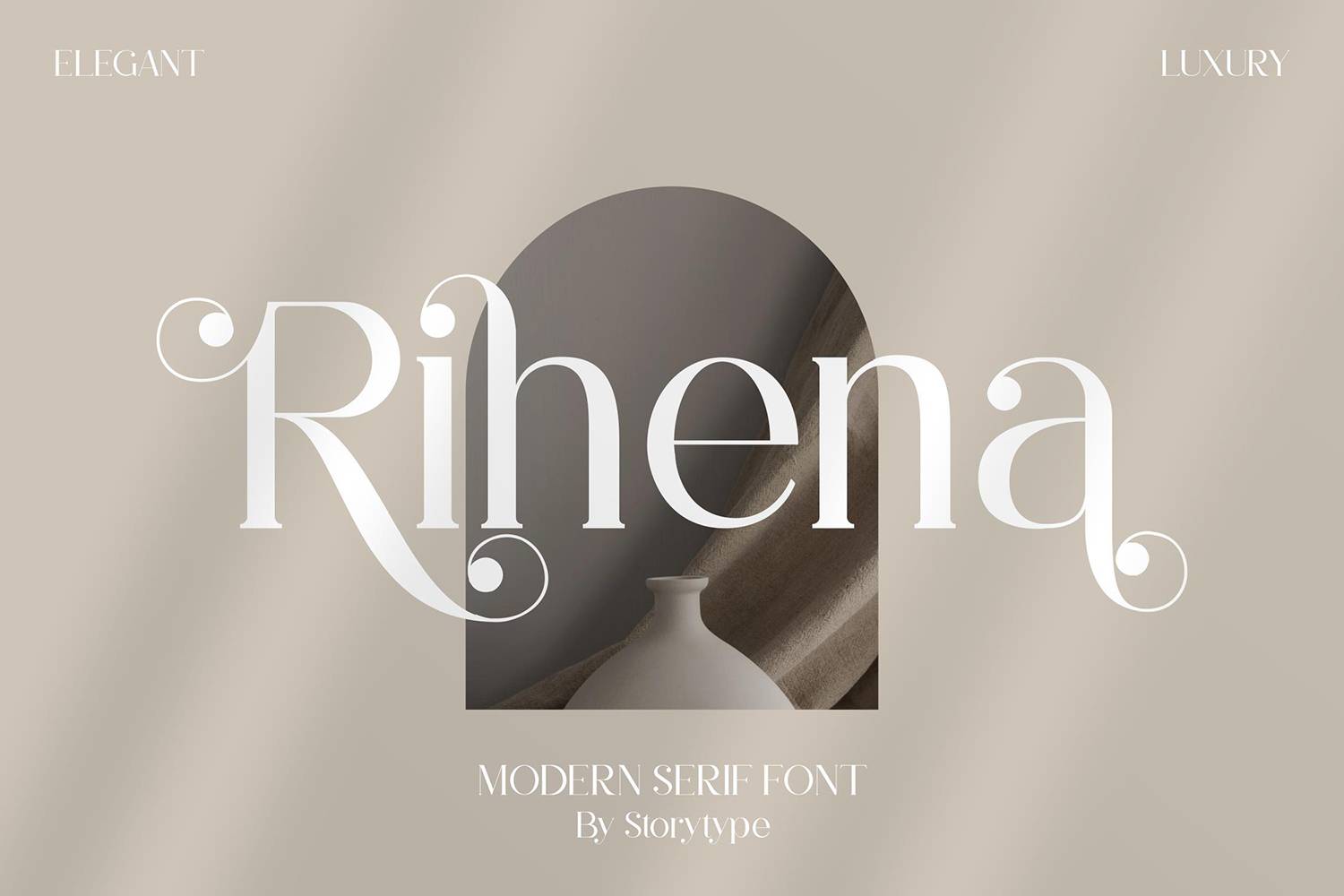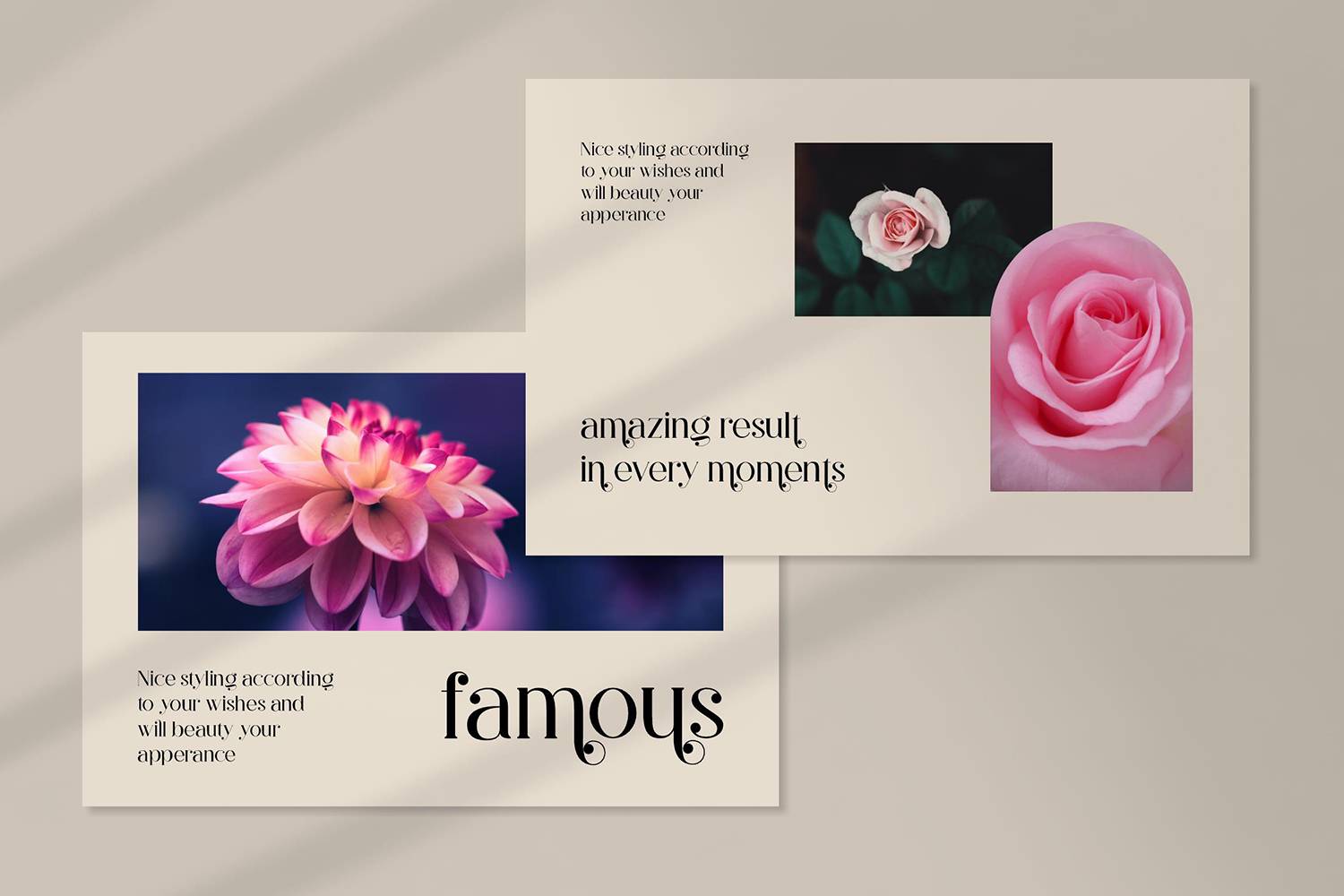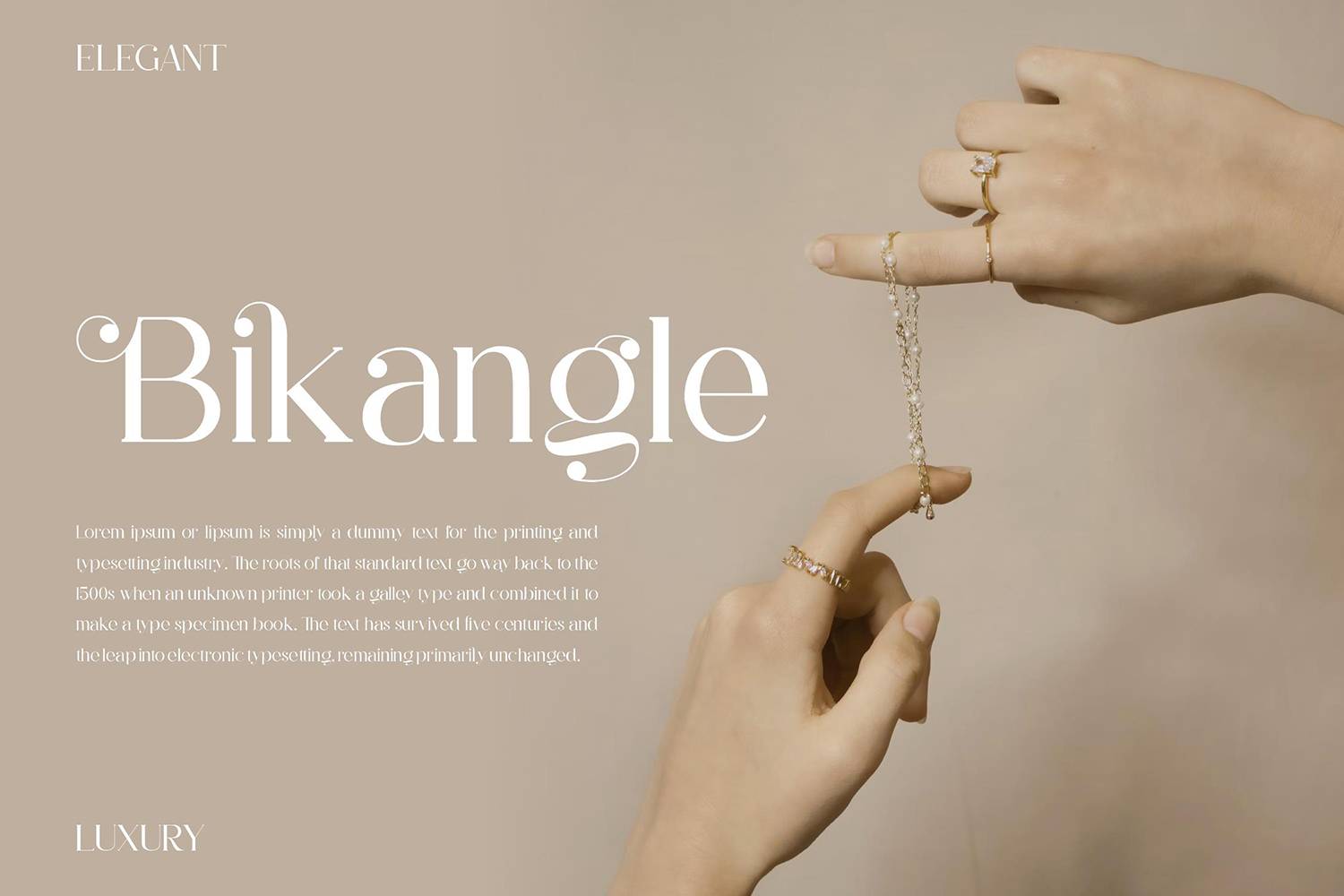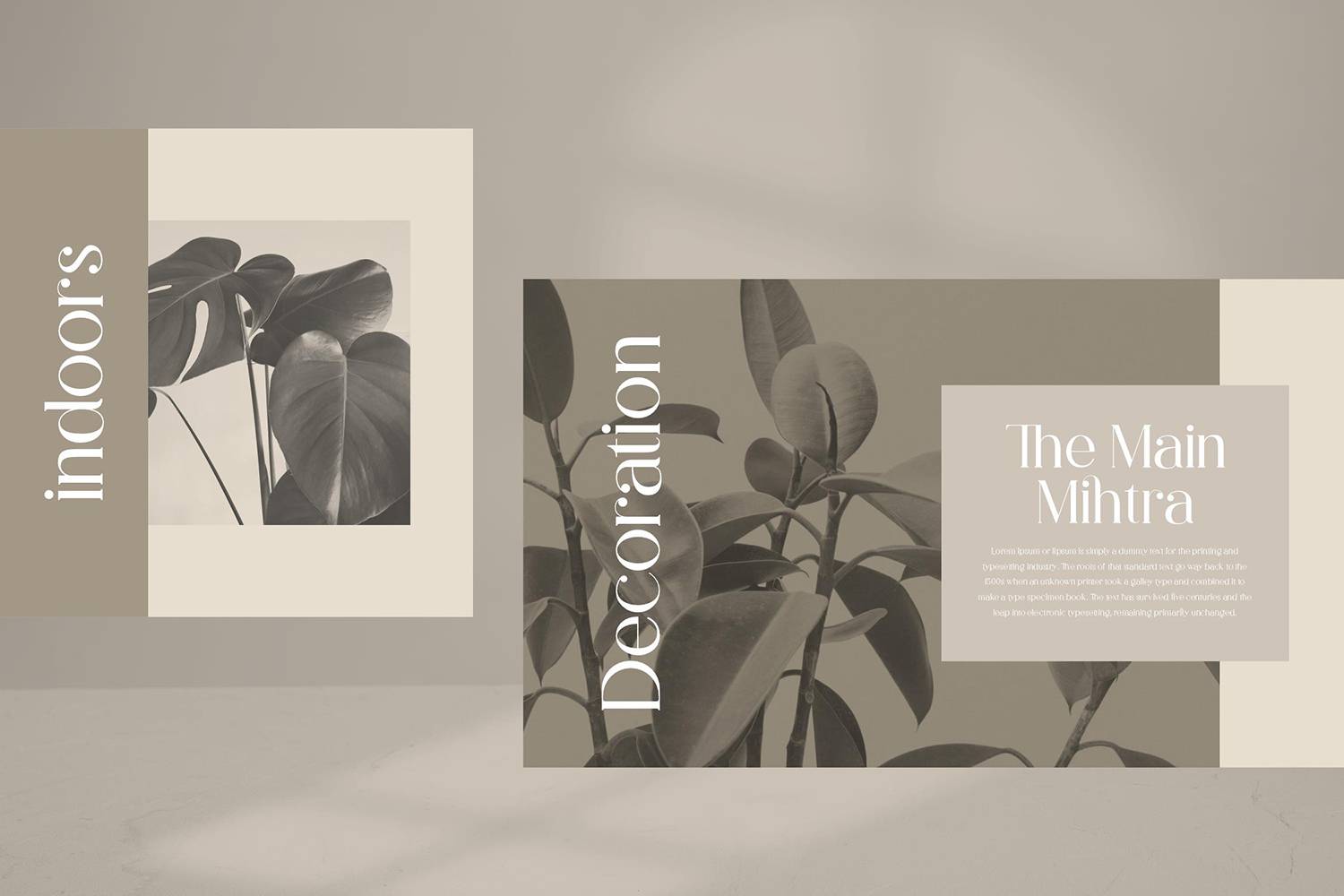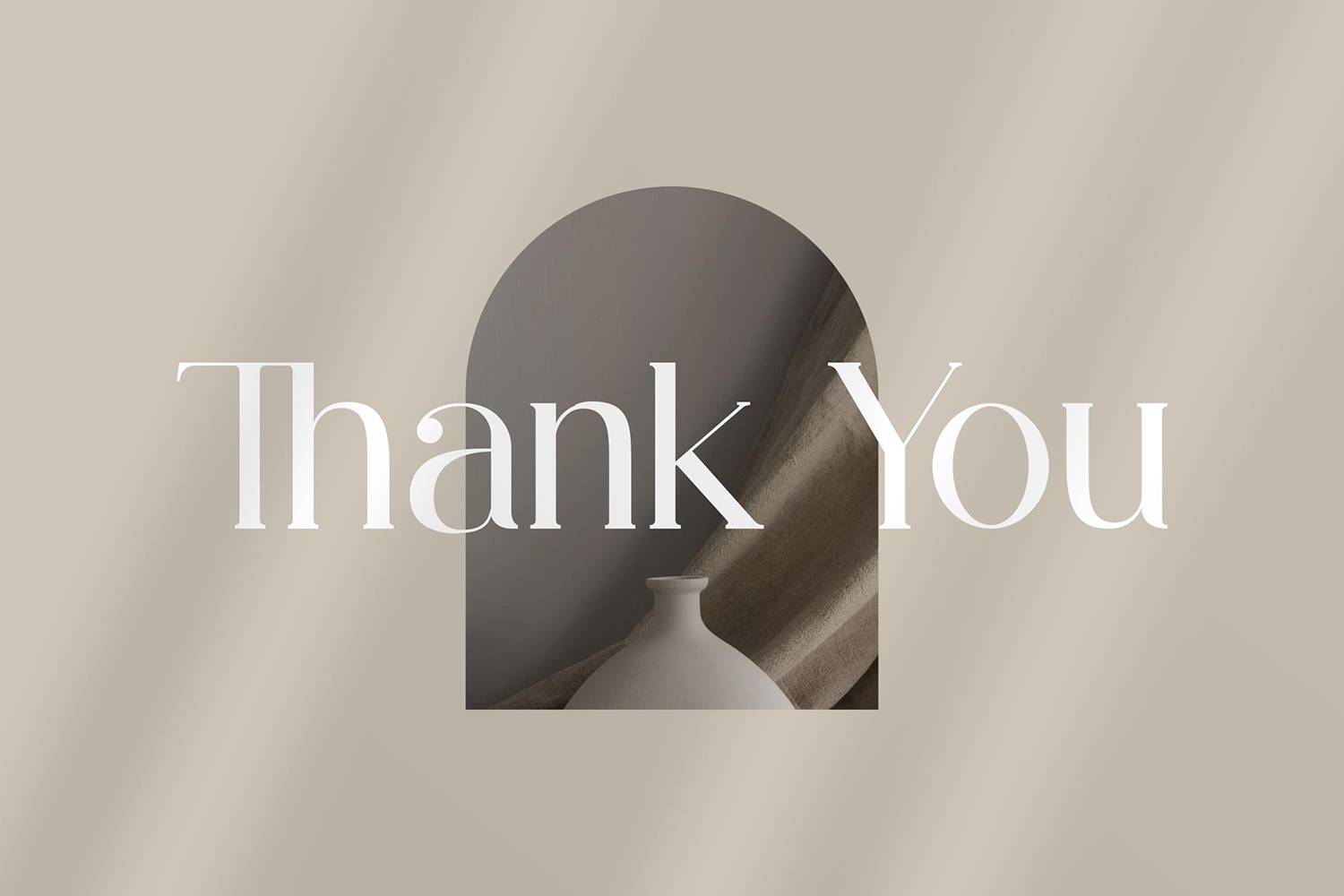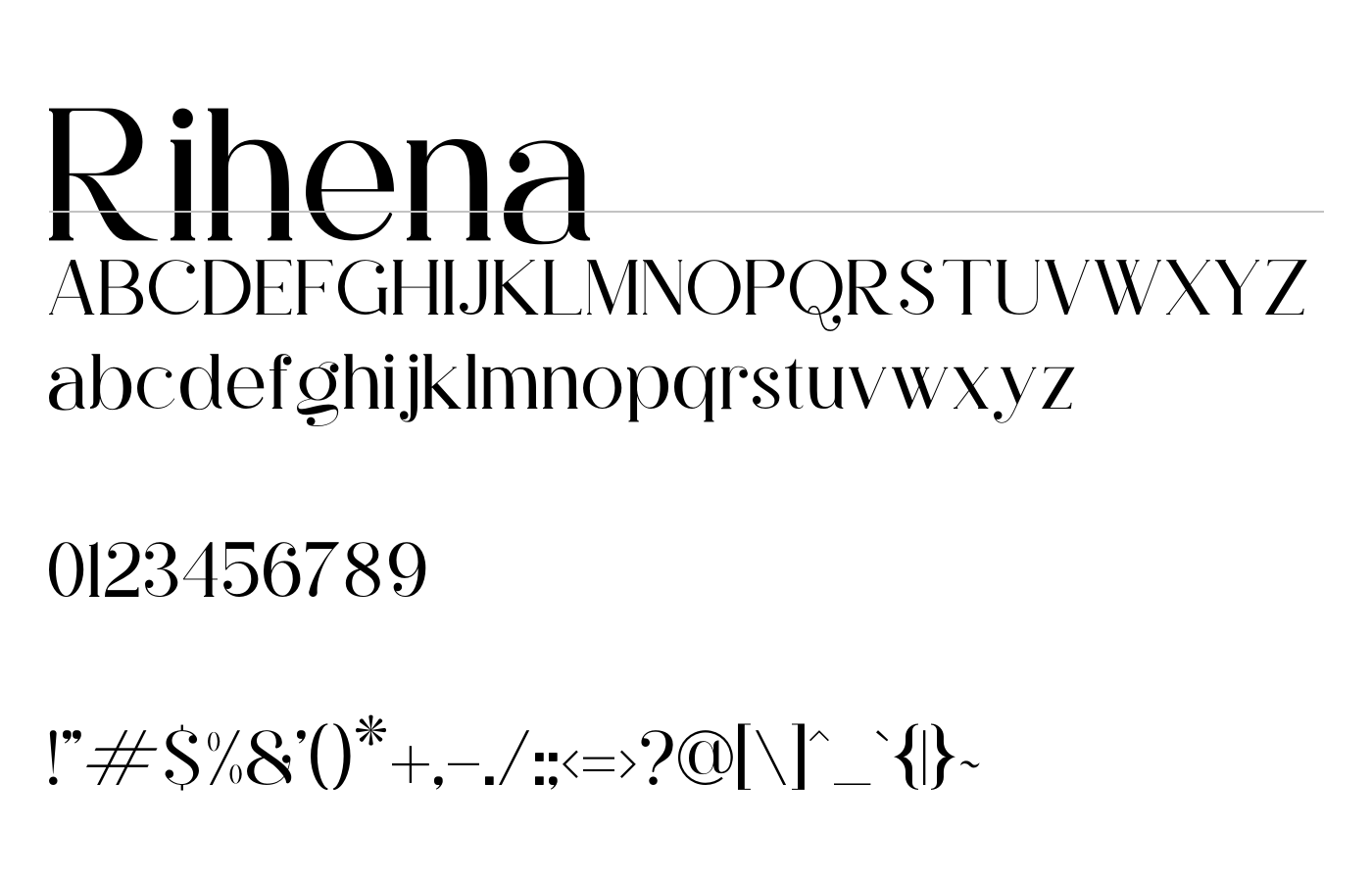
Rihena is an elegant serif font with a refined, modern twist, characterized by high contrast between thick and thin strokes and delicate, bracketed serifs. Its tall x-height and distinct details like the single-story 'a' and stylized tails give it a sophisticated yet approachable feel, ideal for luxury branding, editorial headlines, and fashion-focused designs. This font balances classic serif elegance with contemporary flair, making it perfect for upscale logos, magazine covers, and stylish packaging.
Rihena Font
About Rihena Font